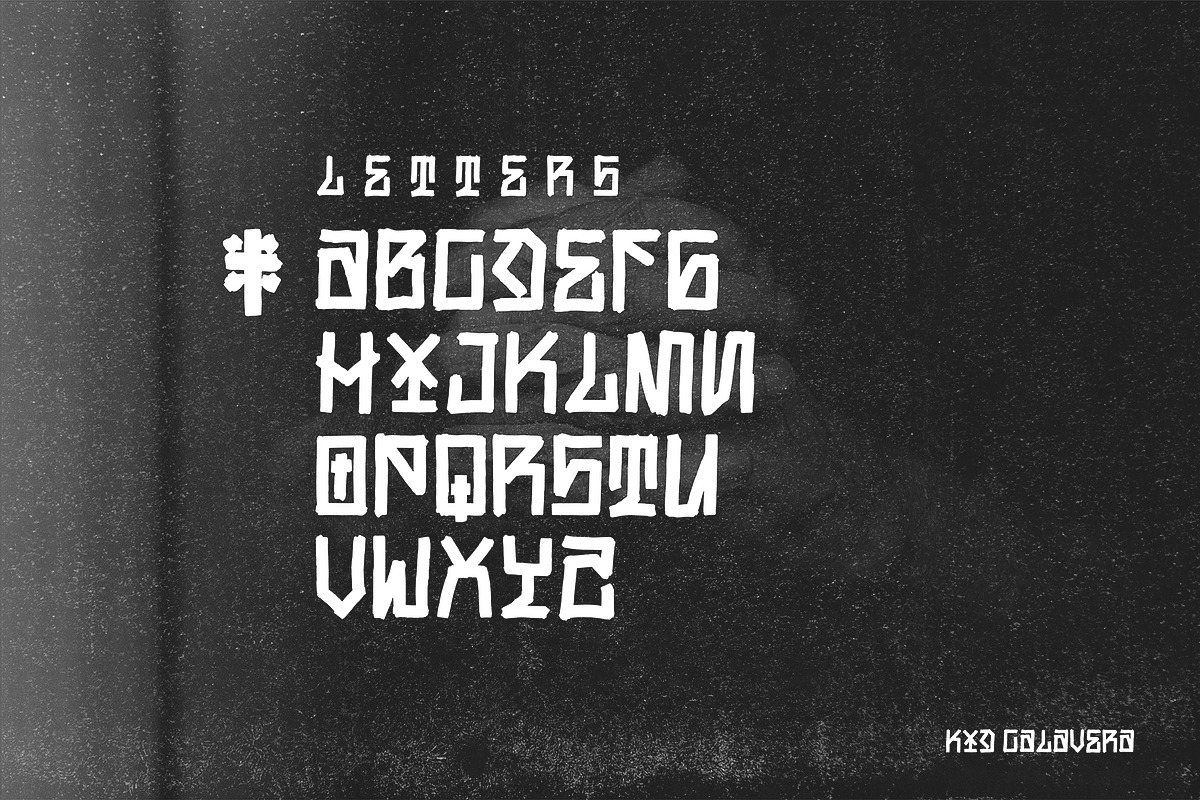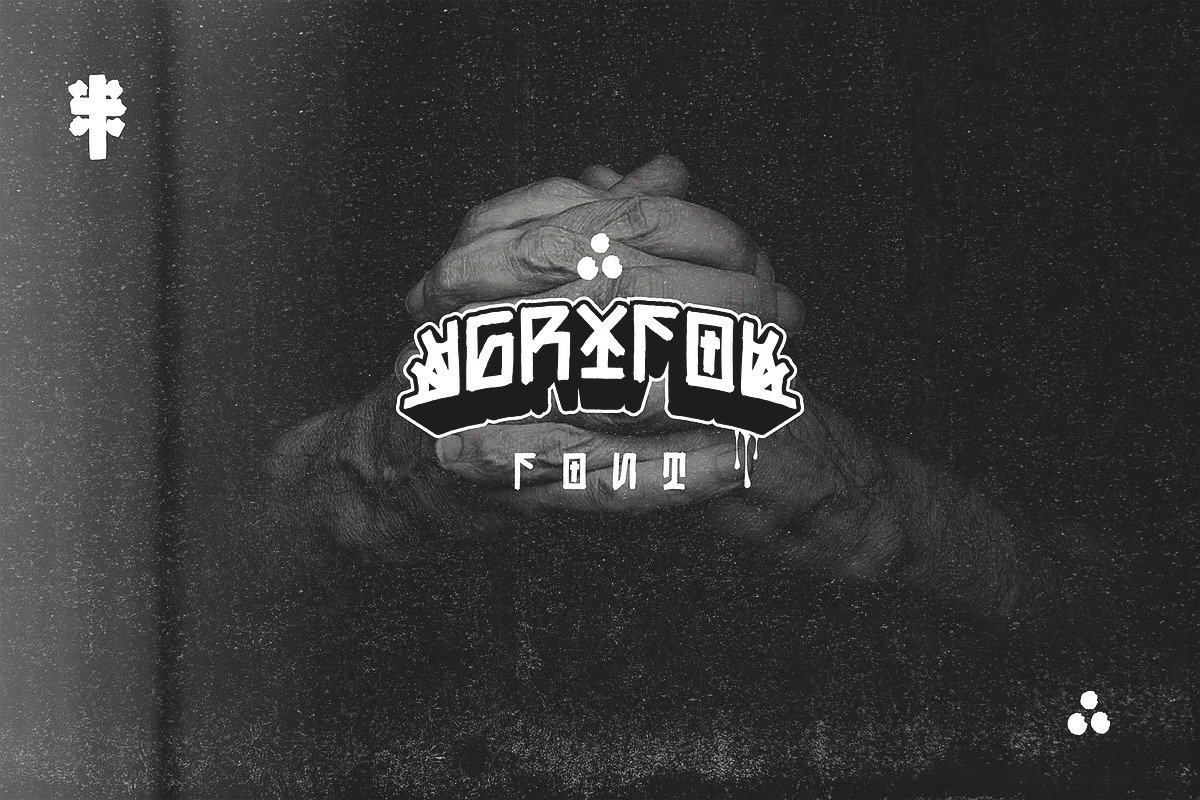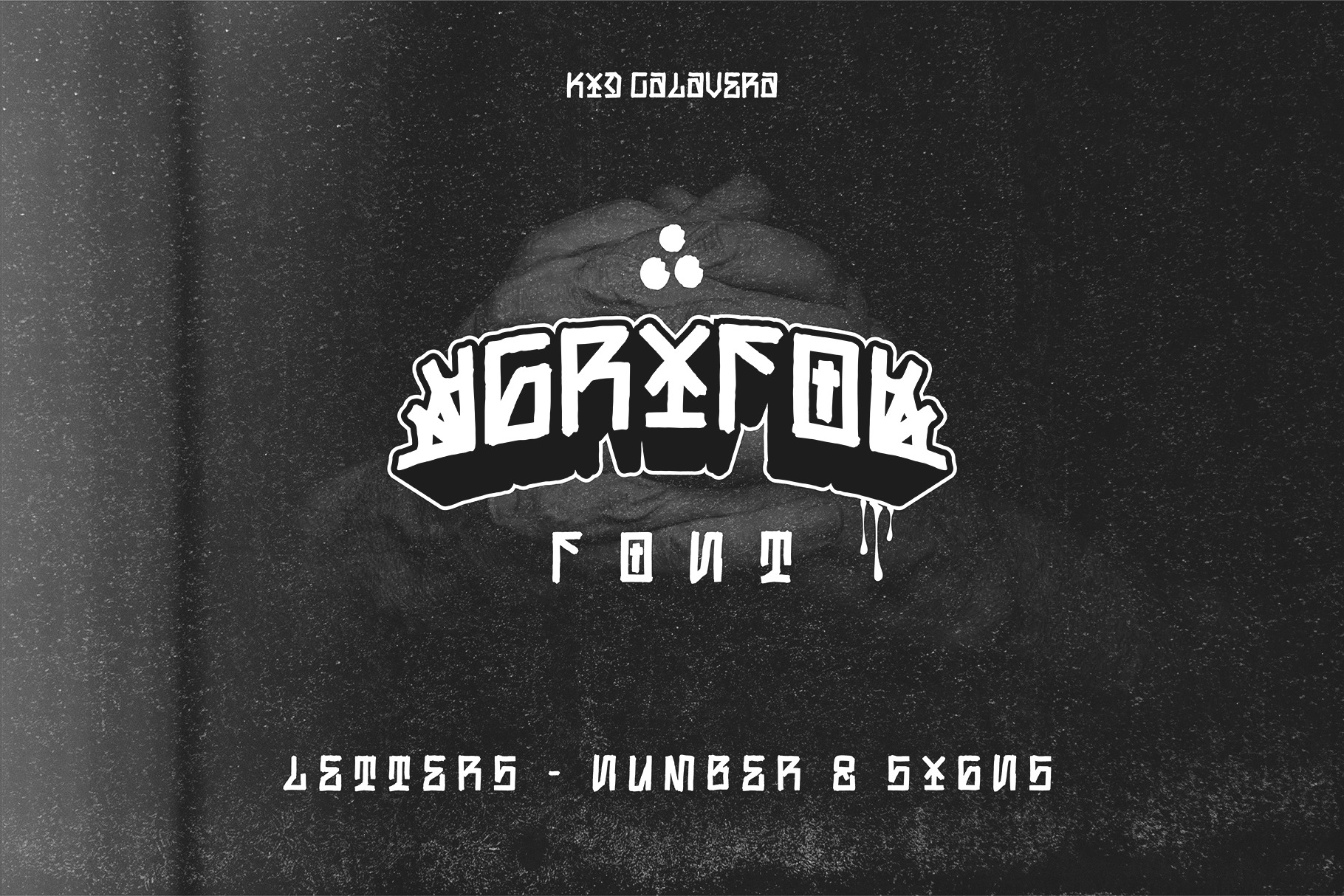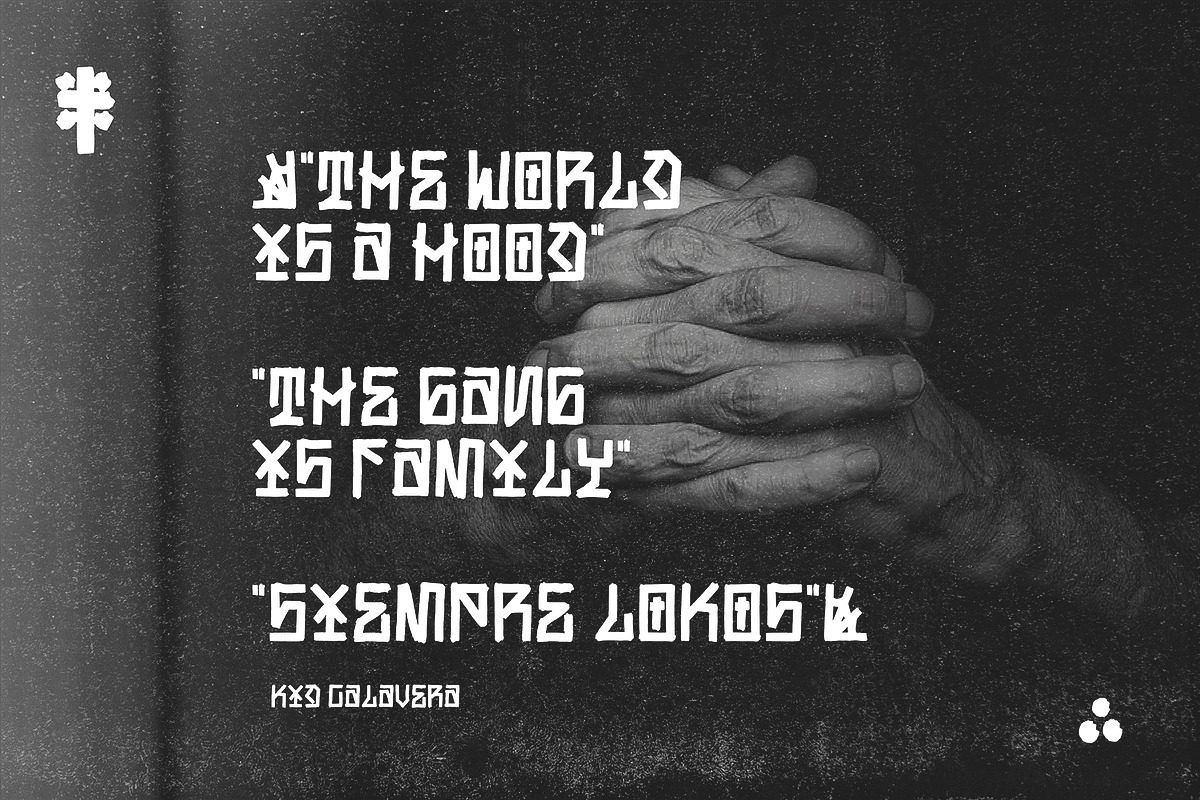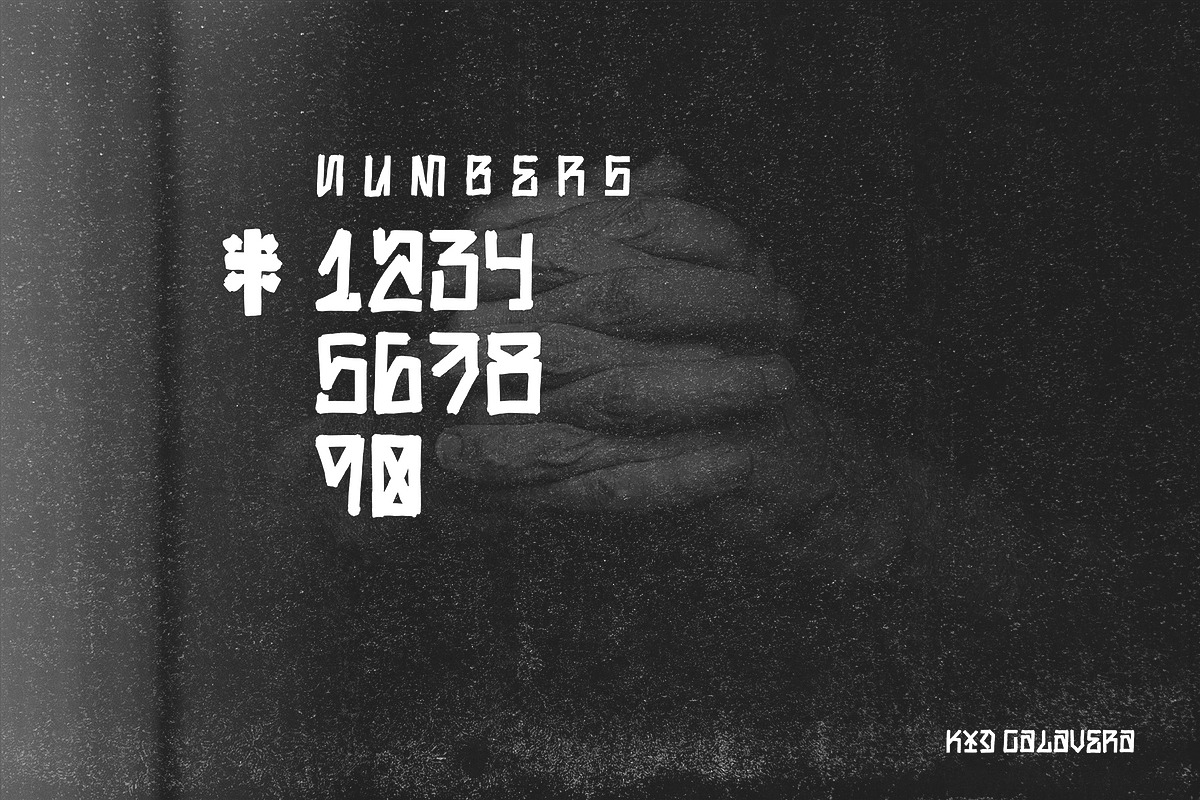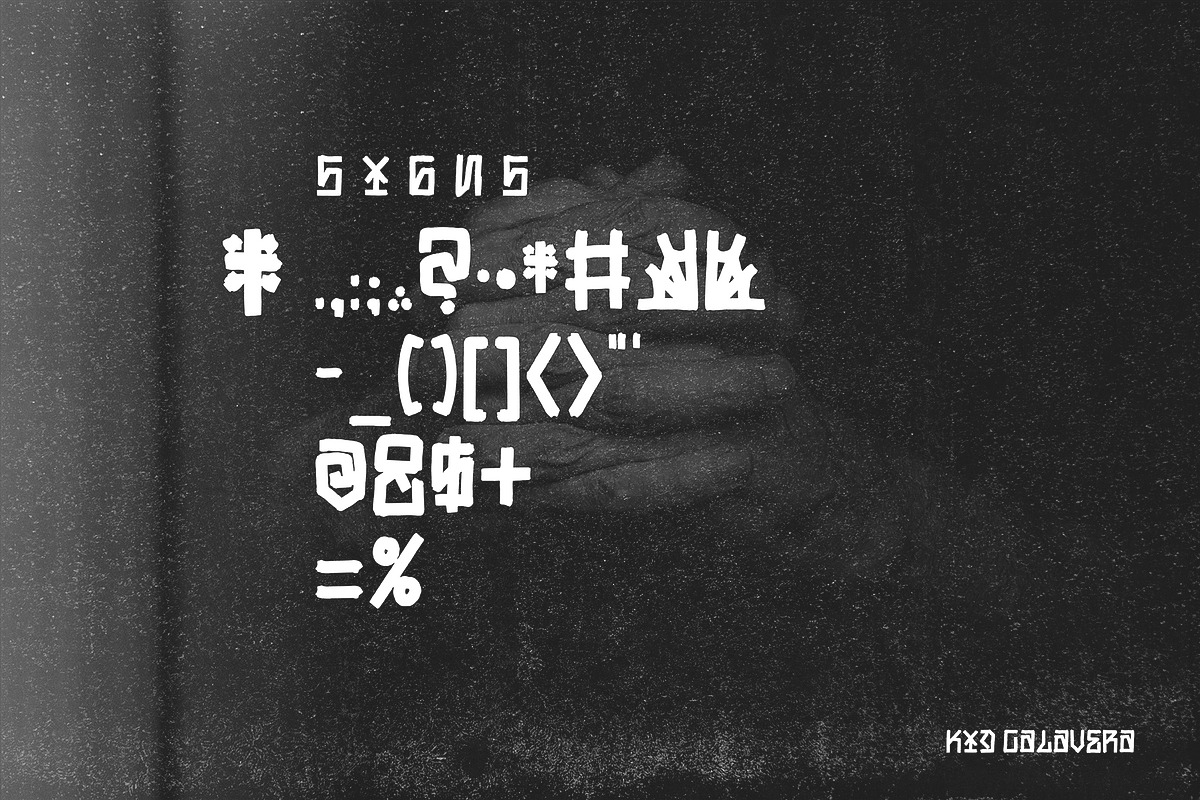
Grifo Font - Black Kraken
Grifo font is the modern serif that takes inspiration from urban design and chicano style. With a unique style that you can apply in your design project. This font made with tenacious basic shapes, power visuality, old-school movement, and modern minimal style.